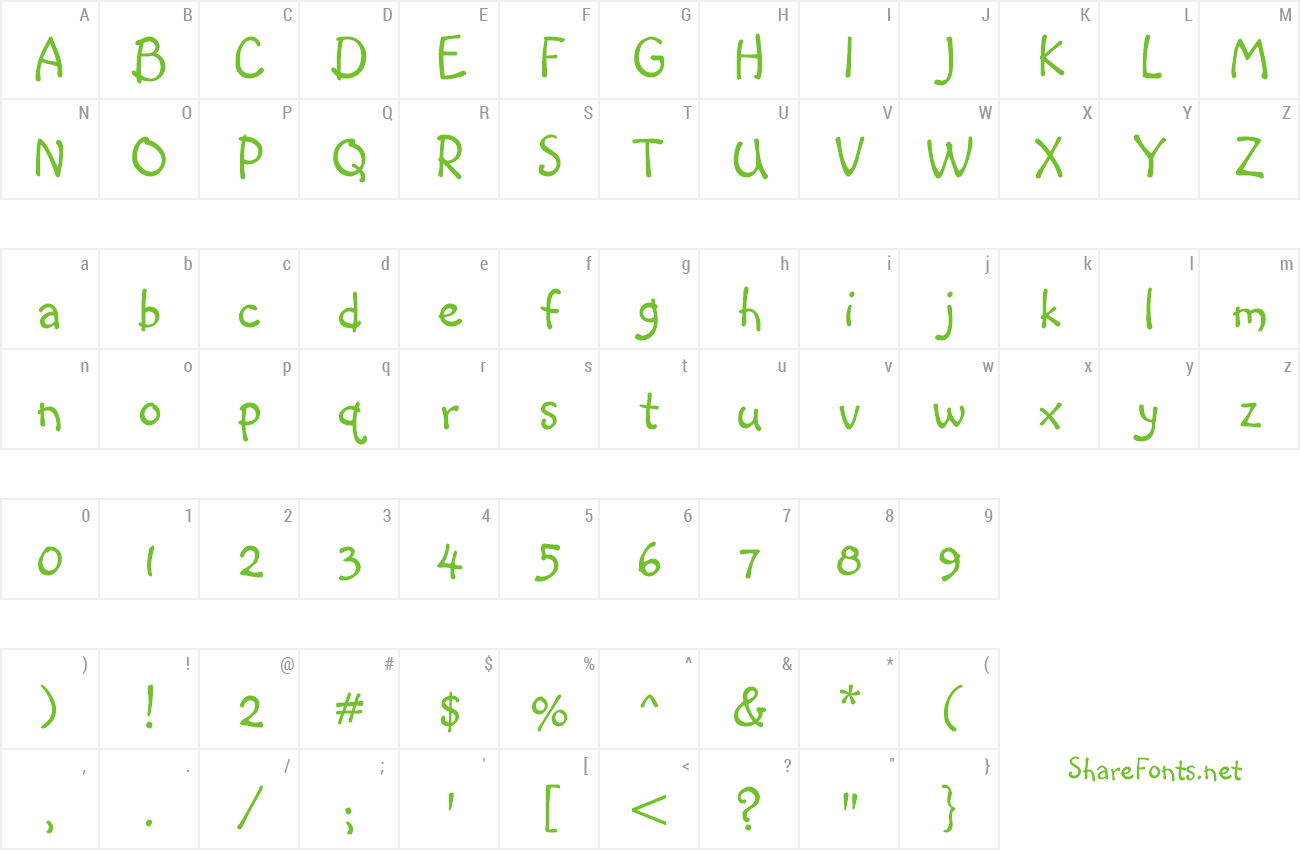
Boldly Missy Font
Boldly Missy Font - I've freshened it up a little bit to keep with the times, but it's probably still a little janky. I’ve freshened it up a little bit to keep with the times, but it’s probably still a little janky. The font family is boldly missy. The font subfamily is regular. Boldly missy is a font i made of my own handwriting in 2006. The author works at company your company. Web boldly missy regular is the perfect font for all your fun designs. Click the download button to download the. Boldly missy is a font i made of my own handwriting in 2006. Free for personal or commercial use!
I've freshened it up a little bit to keep with the times, but it's probably still a little janky. Web boldly missy regular is the perfect font for all your fun designs. Free for personal or commercial use! The font subfamily is regular. The author works at company your company. Boldly missy is a font i made of my own handwriting in 2006. Click the download button to download the. I’ve freshened it up a little bit to keep with the times, but it’s probably still a little janky. The font family is boldly missy. Boldly missy is a font i made of my own handwriting in 2006.
Free for personal or commercial use! The font family is boldly missy. Boldly missy is a font i made of my own handwriting in 2006. Web boldly missy regular is the perfect font for all your fun designs. Click the download button to download the. Boldly missy is a font i made of my own handwriting in 2006. The author works at company your company. I've freshened it up a little bit to keep with the times, but it's probably still a little janky. I’ve freshened it up a little bit to keep with the times, but it’s probably still a little janky. The font subfamily is regular.
The author works at company your company. I've freshened it up a little bit to keep with the times, but it's probably still a little janky. Boldly missy is a font i made of my own handwriting in 2006. Click the download button to download the. The font family is boldly missy.
I’ve freshened it up a little bit to keep with the times, but it’s probably still a little janky. The font subfamily is regular. The font family is boldly missy. The author works at company your company. I've freshened it up a little bit to keep with the times, but it's probably still a little janky.
Boldly missy is a font i made of my own handwriting in 2006. The font family is boldly missy. Free for personal or commercial use! I’ve freshened it up a little bit to keep with the times, but it’s probably still a little janky.
The font subfamily is regular. Web boldly missy regular is the perfect font for all your fun designs. I’ve freshened it up a little bit to keep with the times, but it’s probably still a little janky. Free for personal or commercial use! The font family is boldly missy.
Boldly missy is a font i made of my own handwriting in 2006. Click the download button to download the. Web boldly missy regular is the perfect font for all your fun designs. The font subfamily is regular. The font family is boldly missy.
I've freshened it up a little bit to keep with the times, but it's probably still a little janky. I’ve freshened it up a little bit to keep with the times, but it’s probably still a little janky. Boldly missy is a font i made of my own handwriting in 2006. The font family is boldly missy. Click the download.
Web boldly missy regular is the perfect font for all your fun designs. The author works at company your company. The font family is boldly missy. The font subfamily is regular. I've freshened it up a little bit to keep with the times, but it's probably still a little janky.
Boldly missy is a font i made of my own handwriting in 2006. Click the download button to download the. Web boldly missy regular is the perfect font for all your fun designs. Free for personal or commercial use! The author works at company your company.
Free for personal or commercial use! Web boldly missy regular is the perfect font for all your fun designs. The author works at company your company. Boldly missy is a font i made of my own handwriting in 2006. The font family is boldly missy.
Boldly Missy Is A Font I Made Of My Own Handwriting In 2006.
The font family is boldly missy. Click the download button to download the. Web boldly missy regular is the perfect font for all your fun designs. I've freshened it up a little bit to keep with the times, but it's probably still a little janky.
Boldly missy is a font i made of my own handwriting in 2006. The author works at company your company. The font subfamily is regular. I’ve freshened it up a little bit to keep with the times, but it’s probably still a little janky.